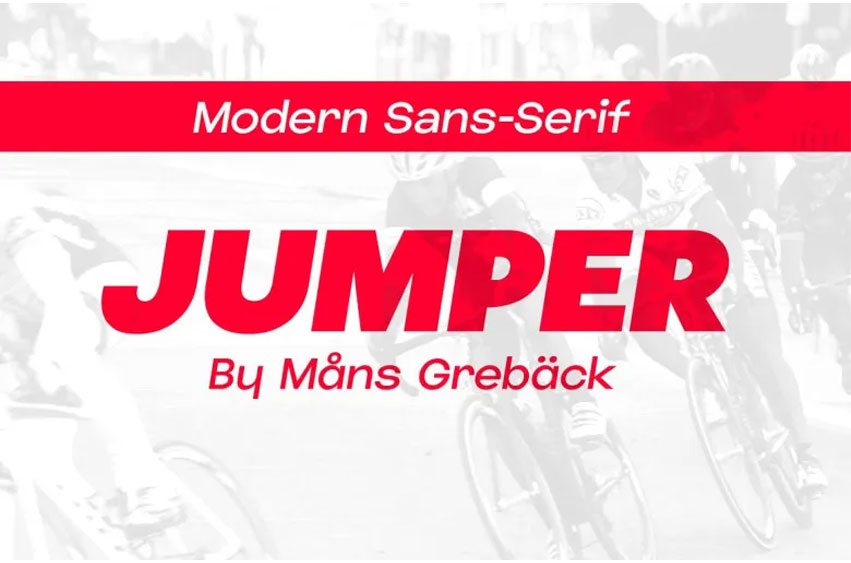
Jumper Modern Font
Jumper Modern Font is an optimistic sans-serif typeface family designed by Mans Greback between 2019-2021. A fast and straightforward typeface suitable for headlines, logotypes or body-text use; its geometric components blend harmoniously with organic shapes for professional lettering that stands the test of time.
With an energetic, cheerful and dynamic style resembling typography from iconic brands such as Nike and Adidas, this type of character exudes energy, optimism and speed.